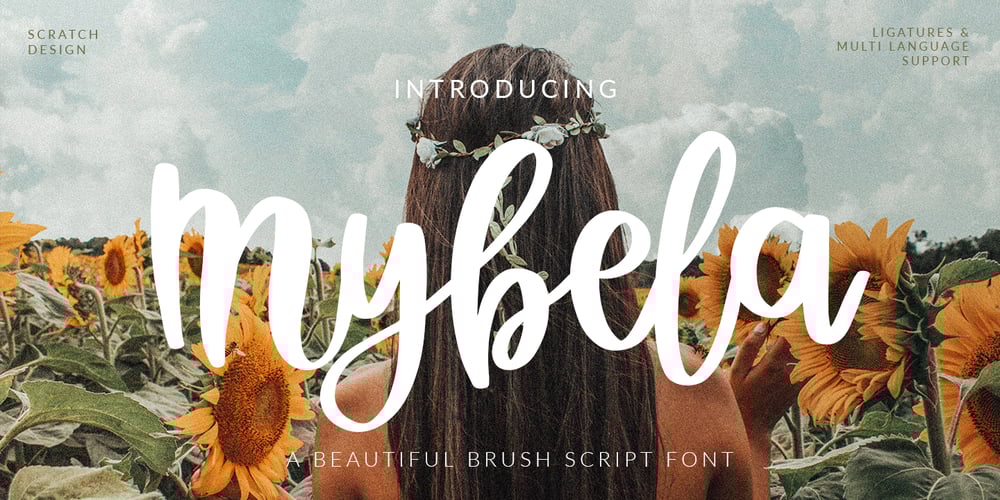
Mybela Font Family was designed by Gitayogi Irhandi and published by Scratch Design. Mybela contains 1 styles and family package options. Mybela is a beautiful brush script font with a super-sexy-casual vibe! This font is incredibly versatile in use cases ranging from street urban, to styled fashionista, to hearty food branding – whatever the weather, and also for invitation wedding or quote text! Mybela comes with a set of upper and lower case letters, and ligatures so you can write one word in a different ways – and keep things natural looking. Also this font has support for multiple languages. Do your magic with Mybela font, be creative and keep beautiful. Enjoy it!